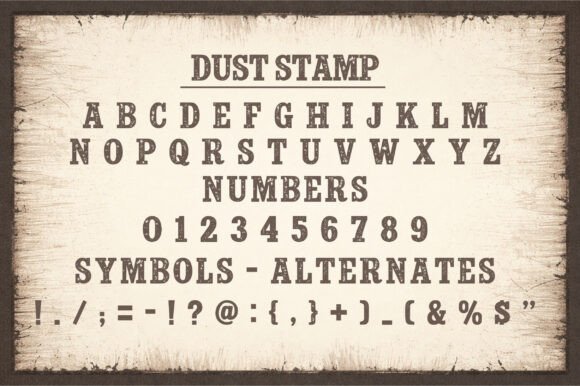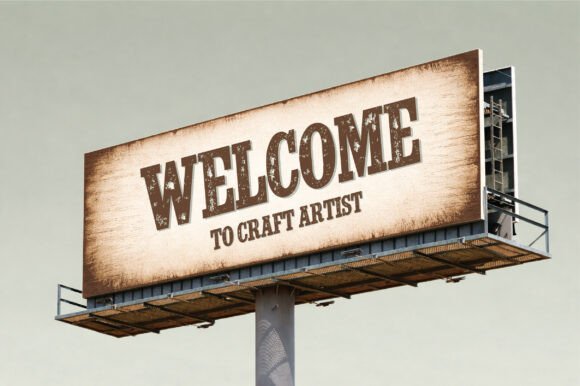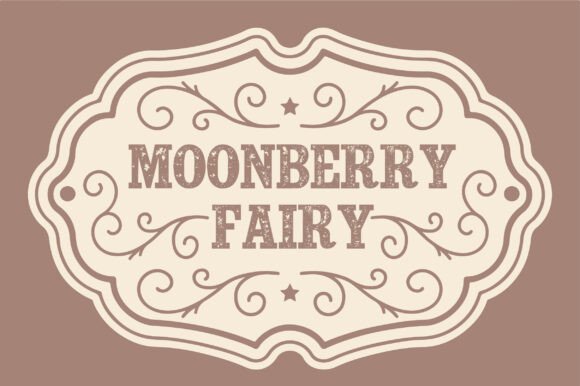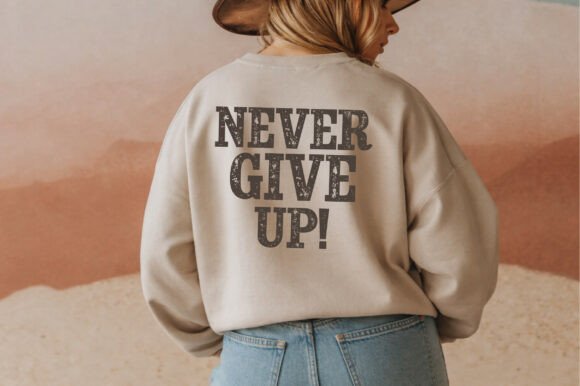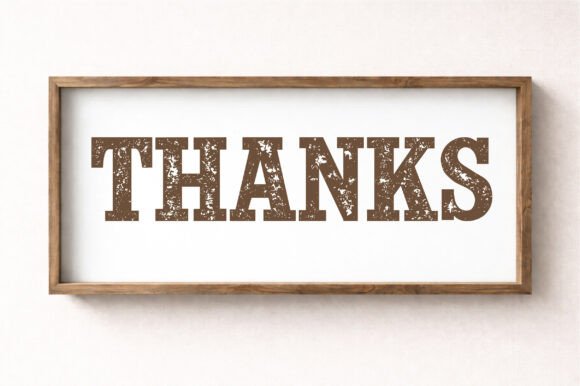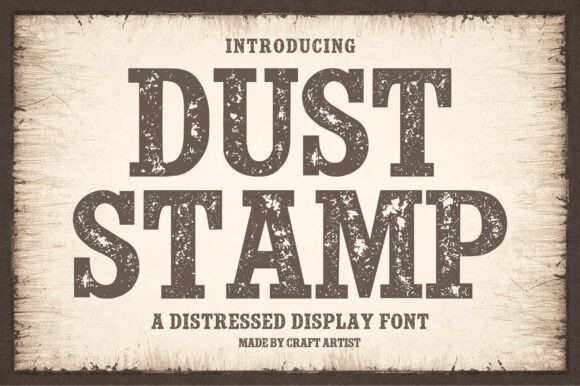
Dust Stamp Font: Add a Touch of Vintage Charm to Your Designs
Are you looking for a font that can add a unique, rustic touch to your designs? Look no further than the Dust Stamp font. This bold, distressed display typeface is perfect for designers seeking eye-catching visuals with a retro, grunge, or vintage aesthetic.
Inspired by Vintage Letterpress Printing
The Dust Stamp font is inspired by vintage letterpress printing, retro signage, and handcrafted typography. Its strong slab serif letterforms feature a rough, worn texture that gives it an authentic, timeless character. The font’s heavy strokes and textured details make it perfect for display-focused projects such as logos, t-shirt designs, posters, branding, labels, packaging, and social media graphics.
Unique Weathered Look
One of the standout features of the Dust Stamp font is its unique weathered look. Each character carries a distinctive worn and distressed appearance, adding depth, personality, and a rustic feel to any creative work. This font is ideal for designers who want to add a touch of nostalgia and character to their designs.
Perfect for Display-Focused Projects
The Dust Stamp font is specifically designed for display-focused projects where bold readability is essential. Its strong, slab serif letterforms make it perfect for use in:
- Logos: Add a touch of vintage charm to your brand’s logo.
- T-shirt designs: Create eye-catching apparel with a retro twist.
- Posters: Make a statement with bold, distressed typography.
- Branding: Add a unique touch to your brand’s identity.
- Labels and packaging: Stand out on store shelves with bold, vintage-inspired typography.
- Social media graphics: Add a touch of nostalgia to your social media posts.
Retro, Grunge, or Vintage Aesthetic
The Dust Stamp font is perfect for designers seeking a retro, grunge, or vintage aesthetic. Its distressed texture and bold letterforms evoke a sense of nostalgia and timelessness, making it ideal for projects that require a unique, eye-catching visual.
Easy to Use and Customize
The Dust Stamp font is easy to use and customize, making it perfect for designers of all levels. With its wide range of applications and versatility, this font is sure to become a staple in your design toolkit.
Key Features of Dust Stamp Font
- Bold, distressed display typeface
- Strong slab serif letterforms with a rough, worn texture
- Inspired by vintage letterpress printing, retro signage, and handcrafted typography
- Unique weathered look adding depth and personality to designs
- Perfect for display-focused projects
- Ideal for retro, grunge, or vintage aesthetic
In conclusion, the Dust Stamp font is a versatile and eye-catching typeface that can add a unique touch to your designs. Its bold, distressed letterforms and vintage-inspired texture make it perfect for a wide range of applications. Whether you’re a designer, craft, or DIY enthusiast, this font is sure to become a valuable addition to your toolkit.